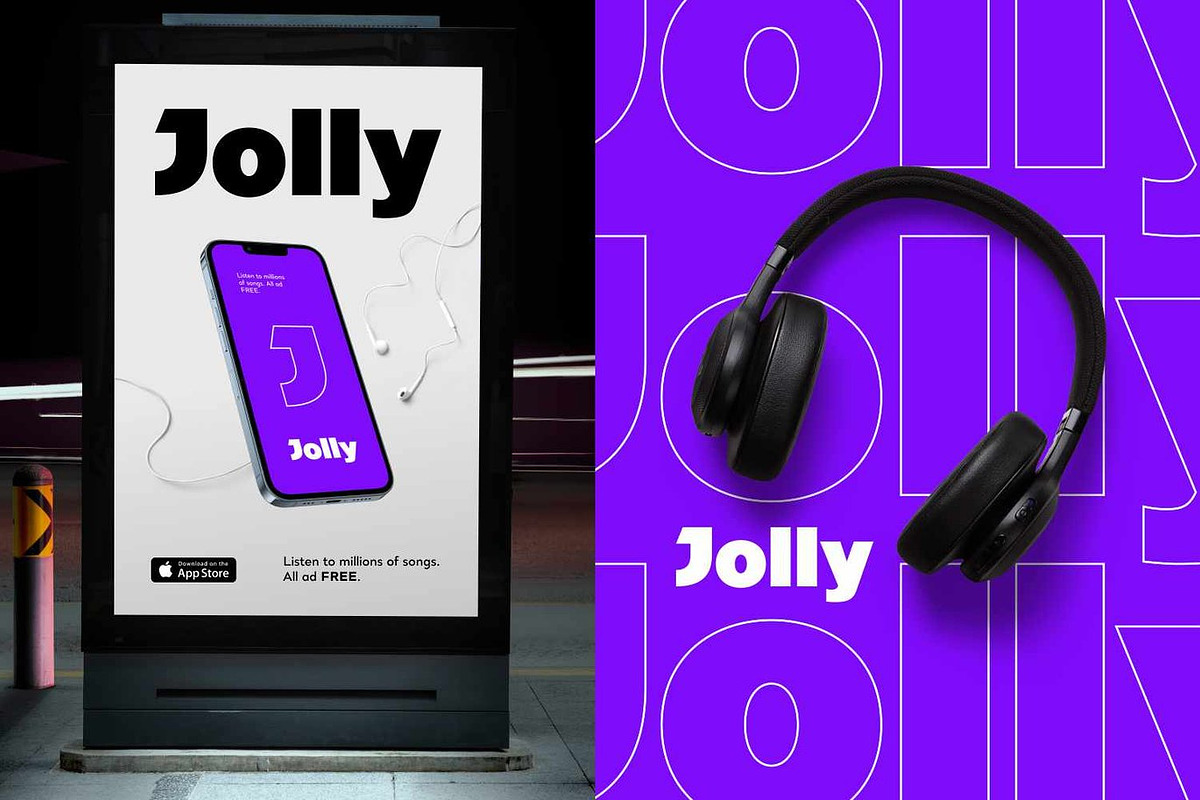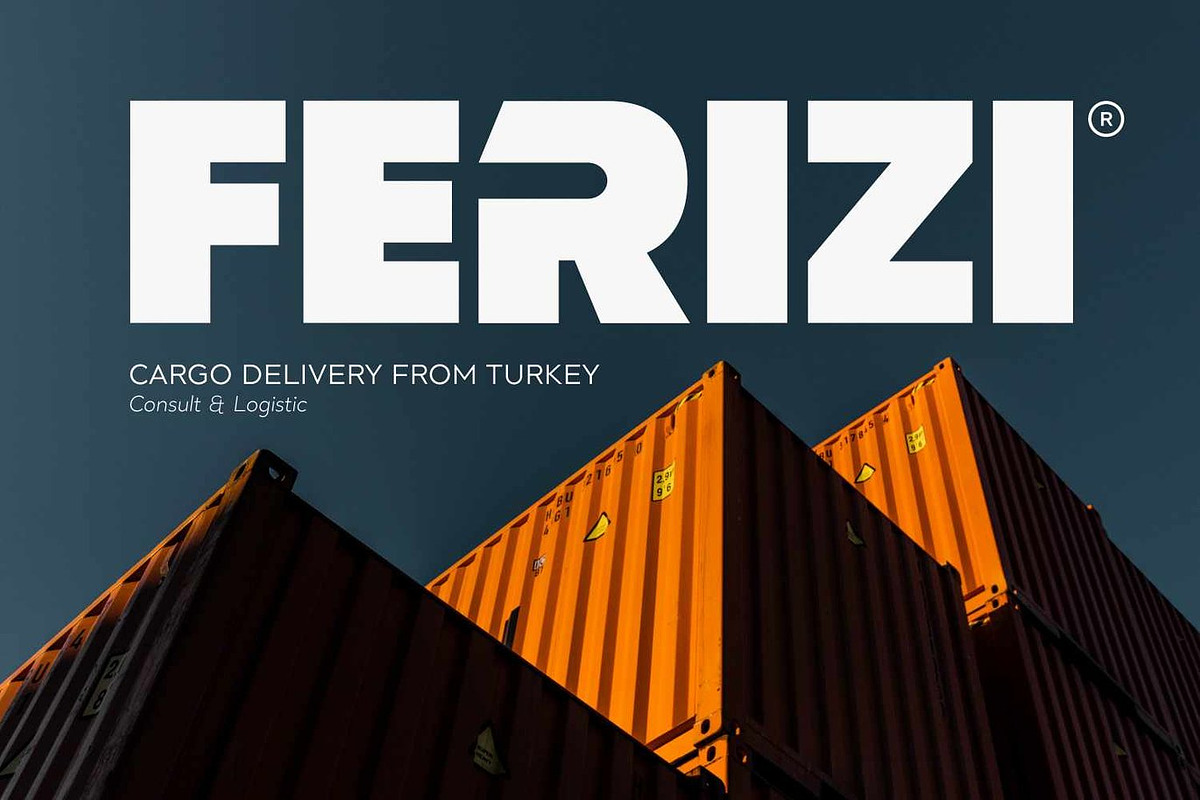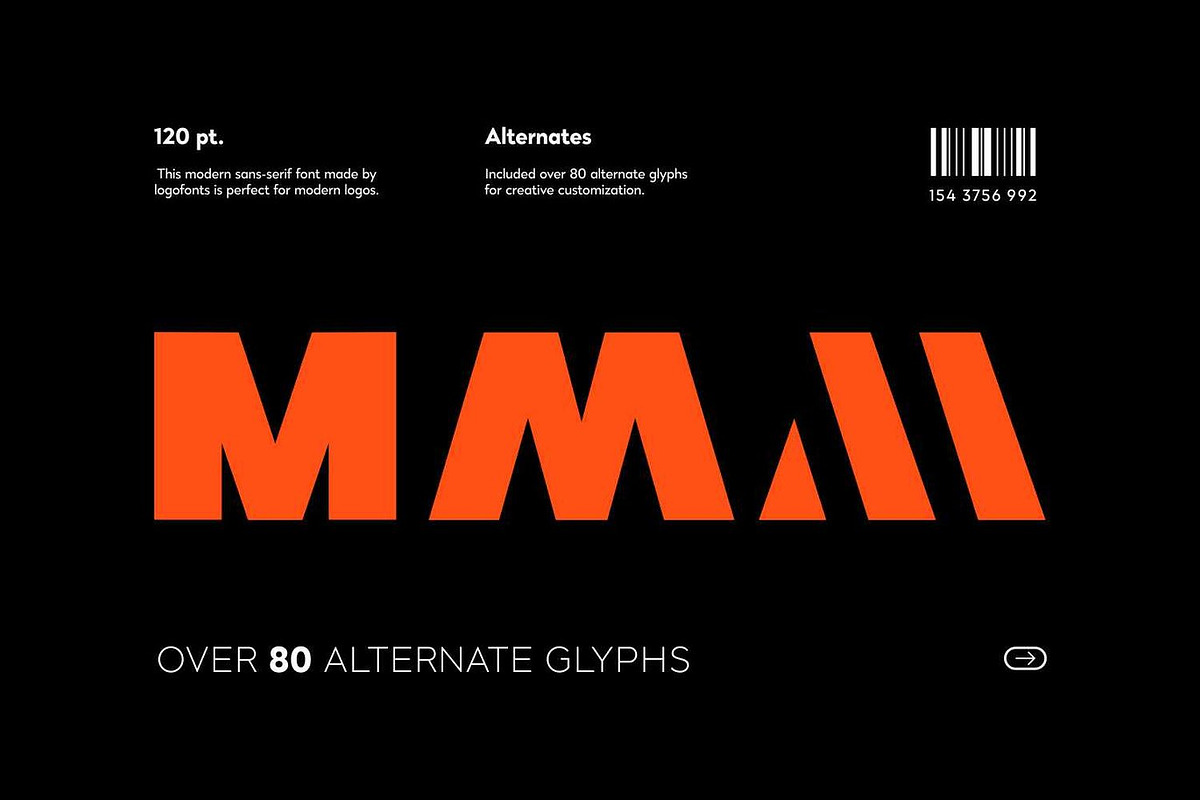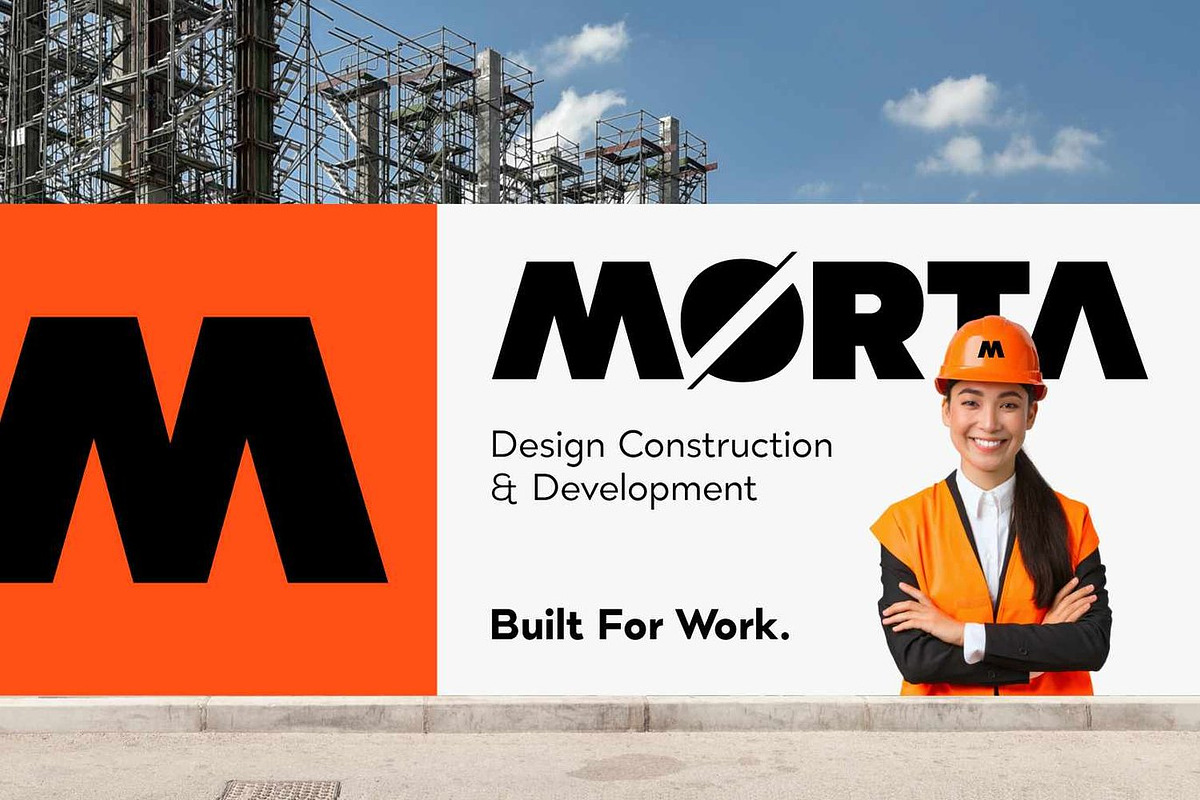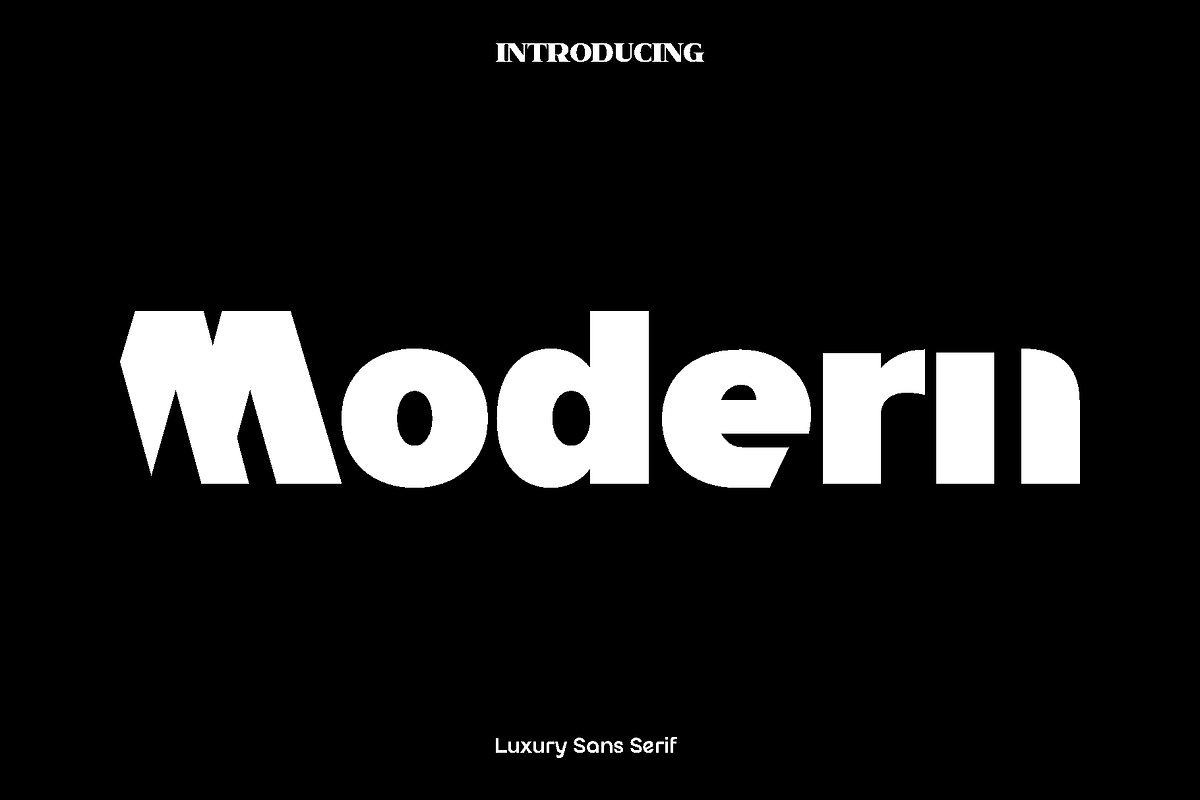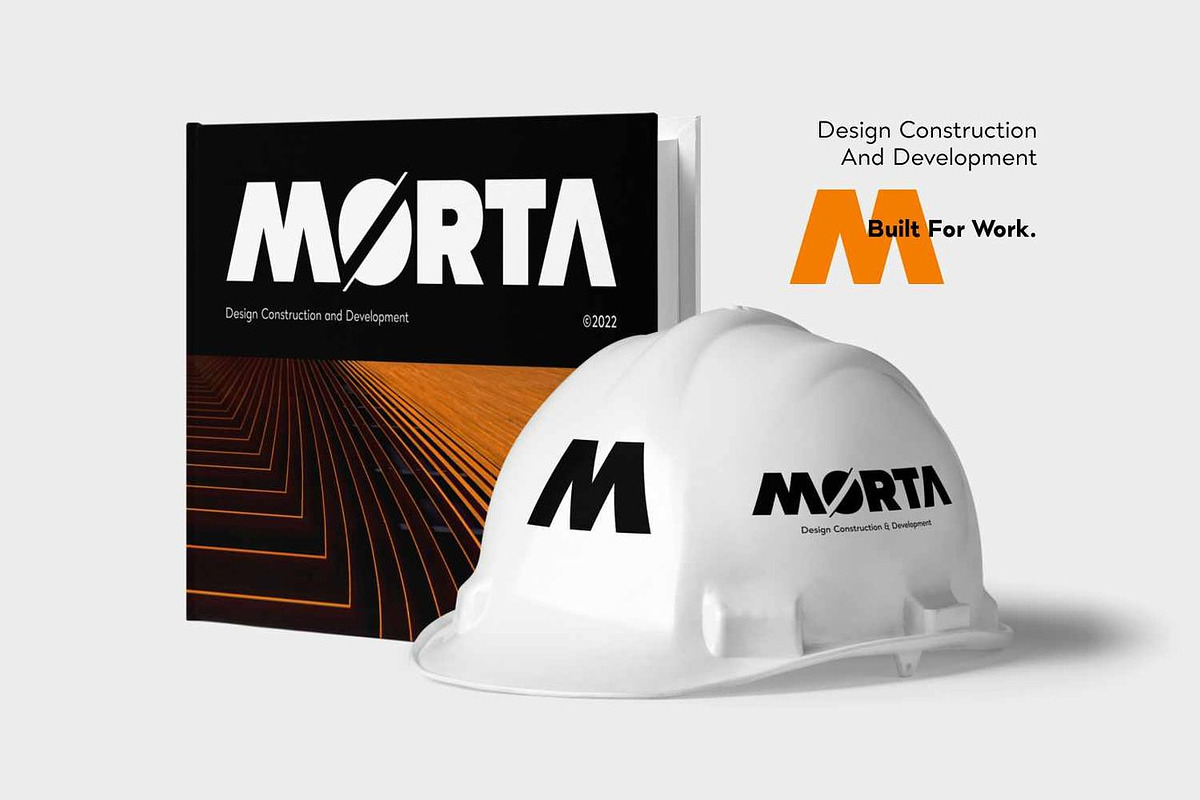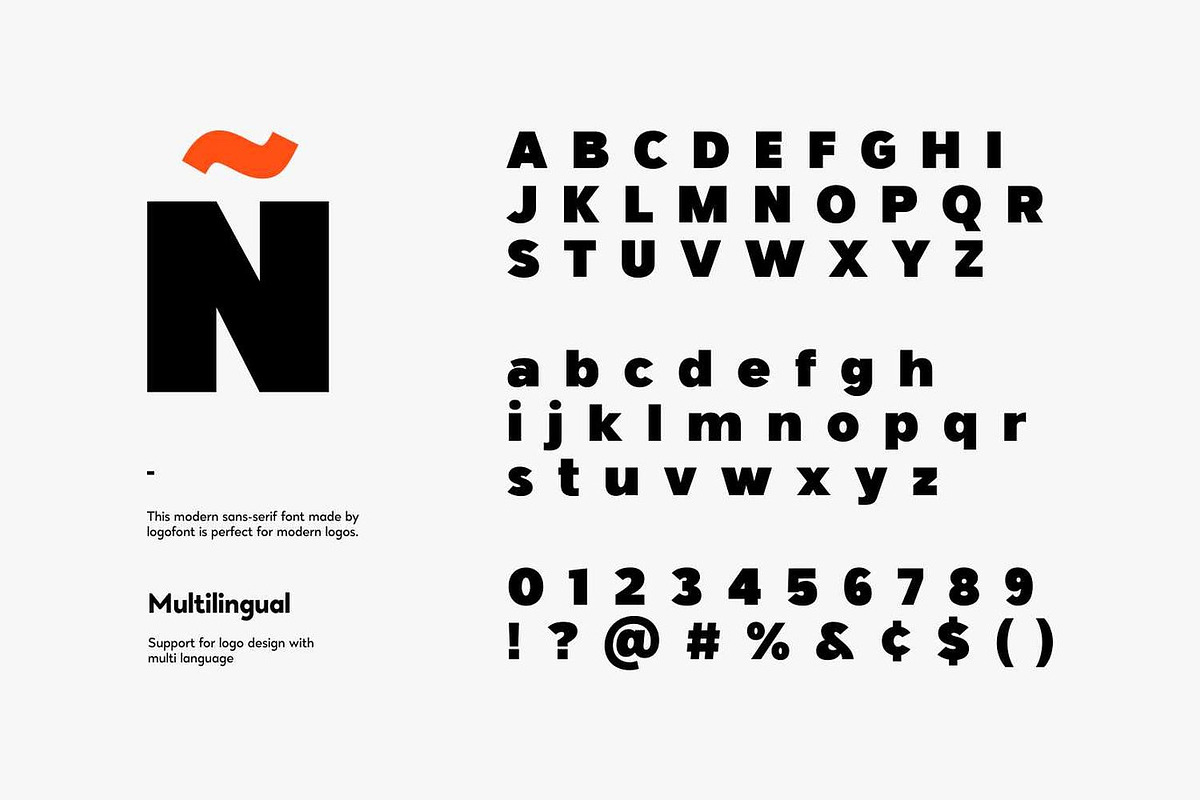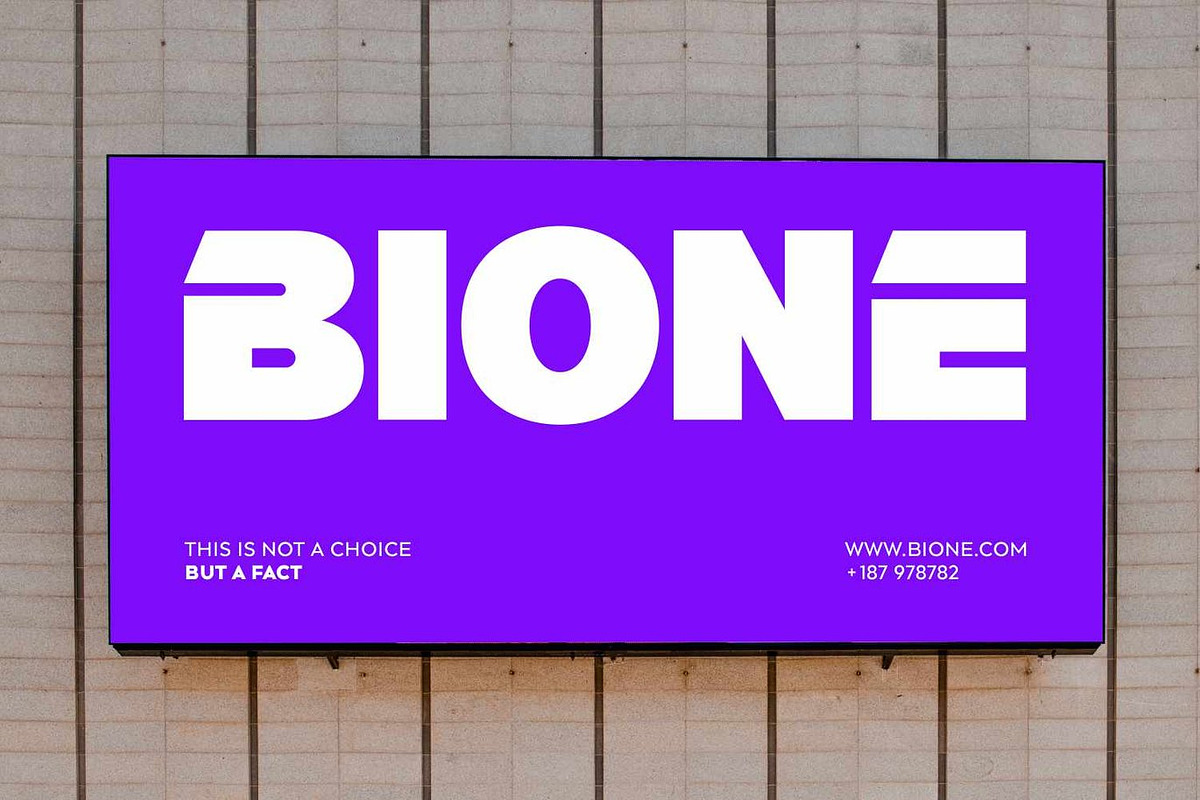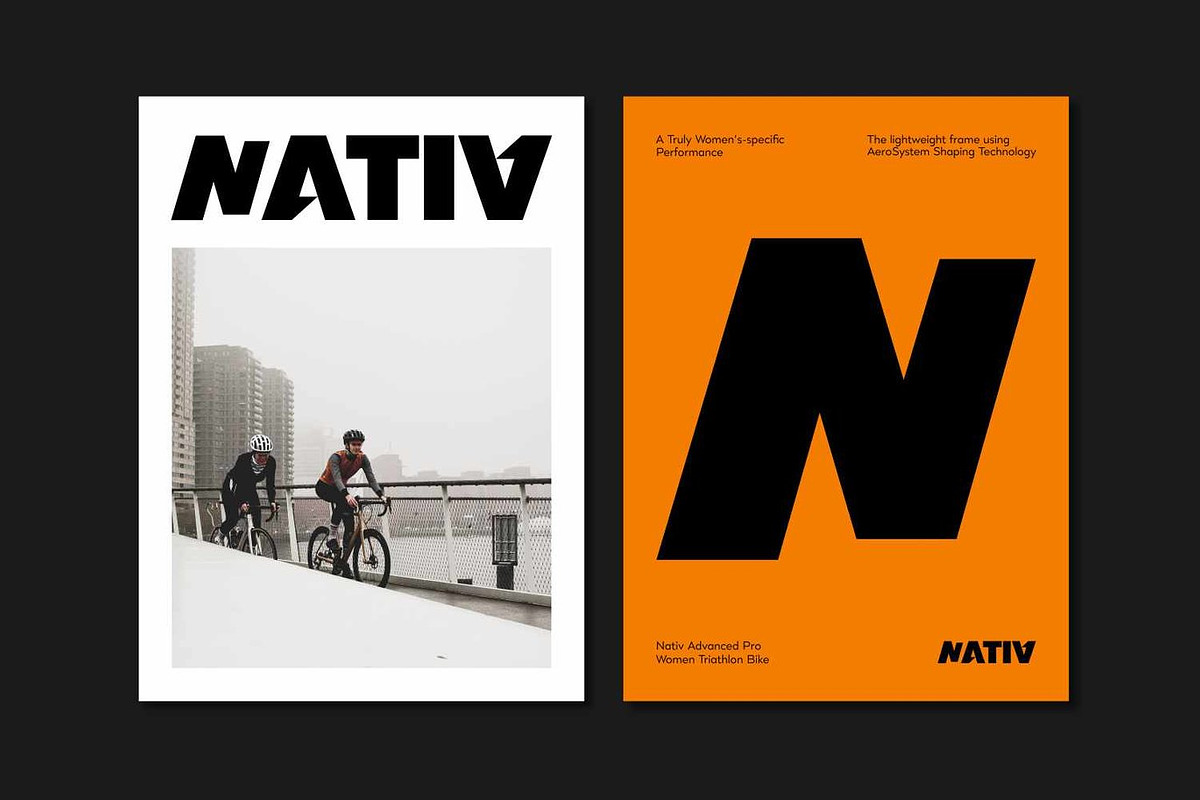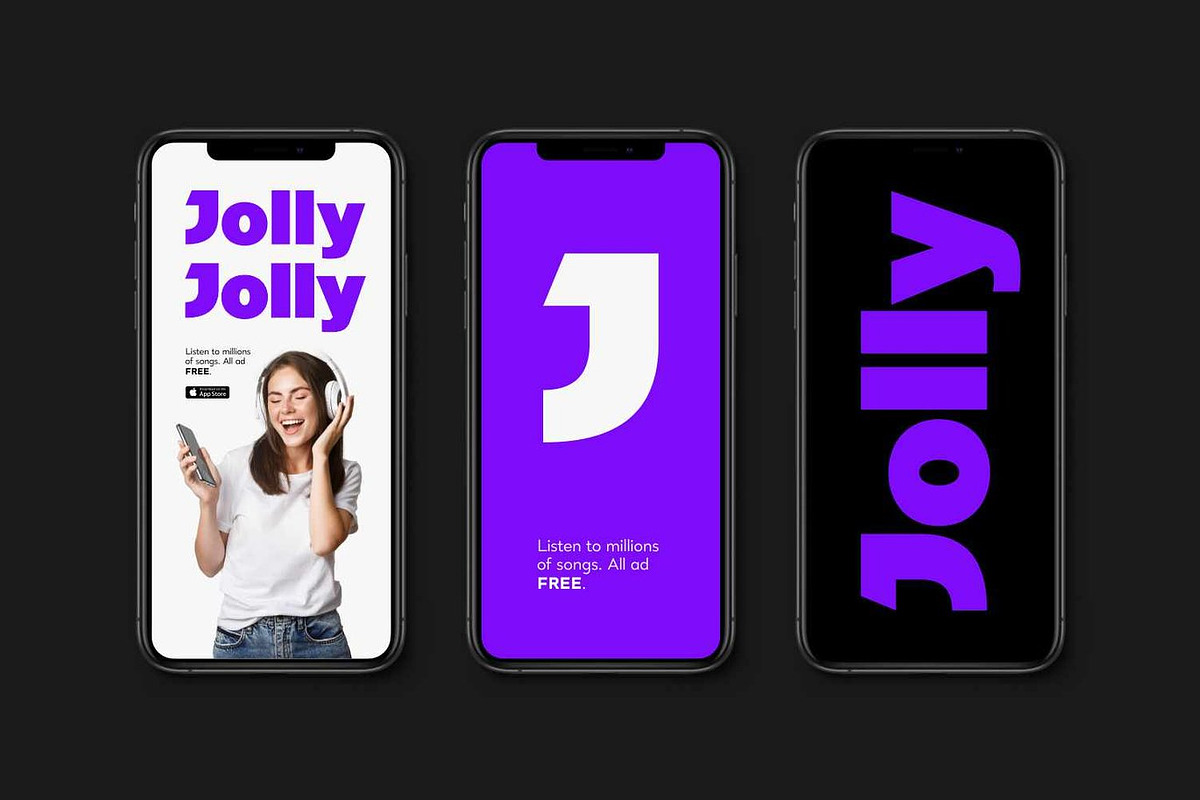
Modern - Luxury Sans Serif
Modern is a contemporary sans serif typeface that captures the essence of today's design language with clean geometry, refined proportions, and timeless sophistication. Built around essential principles of clarity and versatility, Modern delivers crisp letterforms that feel equally at home in bold headlines and extended text applications. This font embodies the minimalist ethos of modern design while maintaining warmth and accessibility that connects with audiences across digital and print platforms.
Where it excels:
Product logos and brand identity: Tech companies, startups, lifestyle brands, corporate identities, and contemporary businesses seeking clean, professional wordmarks that communicate innovation and reliability without visual excess.
Digital interfaces and web design: Website headers, navigation systems, app interfaces, dashboard typography, and responsive layouts where legibility across devices and screen resolutions is paramount.
Editorial and publishing: Magazine mastheads, article headlines, section dividers, book titles, and editorial layouts where structured hierarchy and modern sophistication enhance content clarity.
Advertising and marketing: Posters, social media graphics, business cards, promotional materials, and presentation decks where streamlined typography strengthens messaging without competing for attention.
Packaging and retail: Product labels, box designs, consumer goods, premium packaging, and retail displays where modern aesthetics communicate quality and intentional design.
Standout features:
Uppercase and lowercase with balanced proportions and humanist warmth, ensuring versatility across display headlines and body text applications while maintaining contemporary character.
Symbols and punctuation designed to match the font's modern philosophy, maintaining visual consistency across complex typographic compositions and branded materials.
Numerals with clean alignment perfect for data visualization, pricing displays, timestamps, wayfinding, and editorial numbering with precise legibility.
OpenType features including stylistic alternates that offer nuanced personality shifts, enabling designers to adapt from corporate neutrality to creative expression while maintaining brand consistency.
Ligature collection that resolves awkward letter pair interactions and adds typographic refinement to headlines, logos, and display applications.
Multilingual support ensuring Modern clean, contemporary voice translates seamlessly across languages, regions, and international brand ecosystems worldwide.
Choose Modern when your project demands clarity, versatility, and contemporary professionalism. Perfect for product logos, posters, headlines, web interfaces, magazines, packaging, and stationery, this sans serif delivers essential modern typography with sophisticated presence that adapts seamlessly to evolving design challenges across all applications.